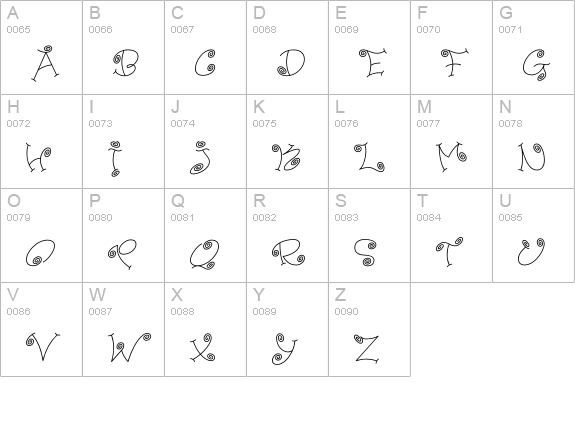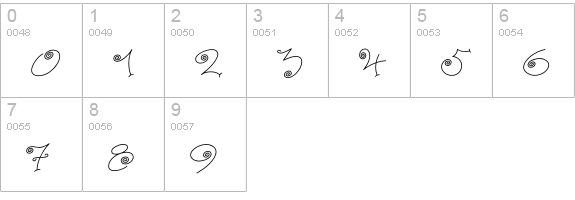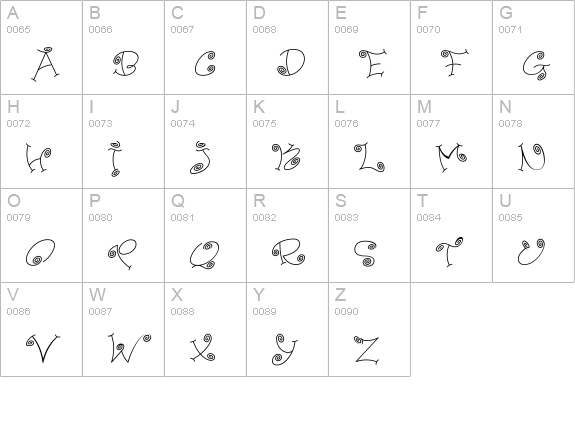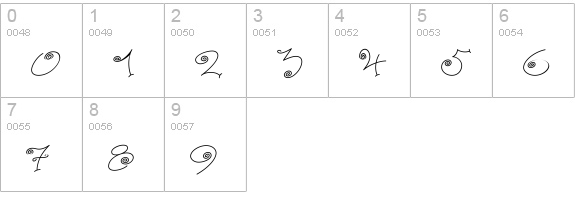
PaisleyICG-01Alt Font Details
PaisleyICG-01Alt font is a stunning display typeface that effortlessly combines elegance with a touch of vintage charm. Its intricate details and graceful curves make it perfect for adding a touch of sophistication to any design project. This font is a versatile choice, suitable for a wide range of applications. Whether you're creating a logo, designing a poster, or crafting a wedding invitation, PaisleyICG-01Alt font will bring a sense of refinement to your work. One of the most remarkable aspects of PaisleyICG-01Alt font is that it is free for personal and commercial use. You can freely download this font and use it in any project, without any limitations. It is available for download exclusively at FontsMarket.com, a trusted platform for high-quality fonts. With its extensive character set, PaisleyICG-01Alt font offers countless creative possibilities. It includes uppercase and lowercase letters, numbers, punctuation marks, and special characters. This wide range of glyphs allows you to create unique and eye-catching designs that will captivate your audience. The craftsmanship of PaisleyICG-01Alt font is truly remarkable. Each letter is meticulously crafted, ensuring clarity and legibility, even at smaller sizes. This attention to detail makes it a great choice for both digital and print designs. In addition to its exceptional design, PaisleyICG-01Alt font is also highly customizable. It can be easily adjusted to match your desired style and tone. Whether you want to add a playful twist or maintain a classic look, this font can adapt to your vision effortlessly. Don't miss out on the opportunity to enhance your design projects with the timeless beauty of PaisleyICG-01Alt font. Download it for free at FontsMarket.com and let your creativity soar. With this font, you can effortlessly elevate your designs and make a lasting impression.